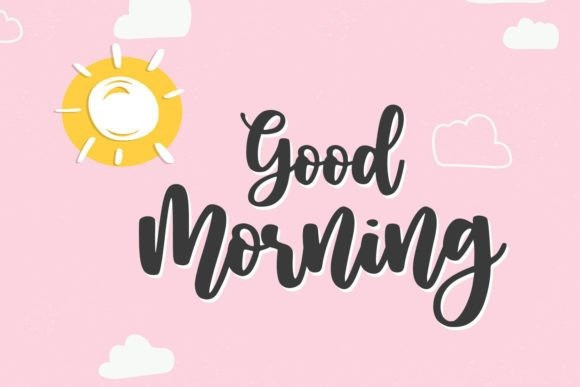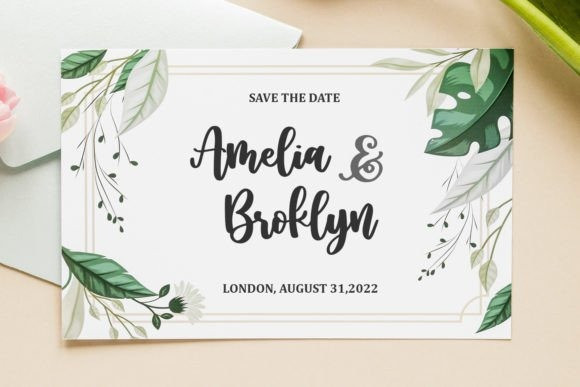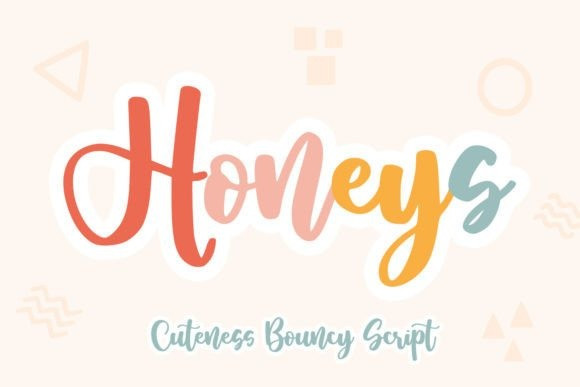
Honeys Font
Honeys Font is a romantic and sweet calligraphy typeface with characters that dance along the baseline. It has a casual, yet elegant touch.